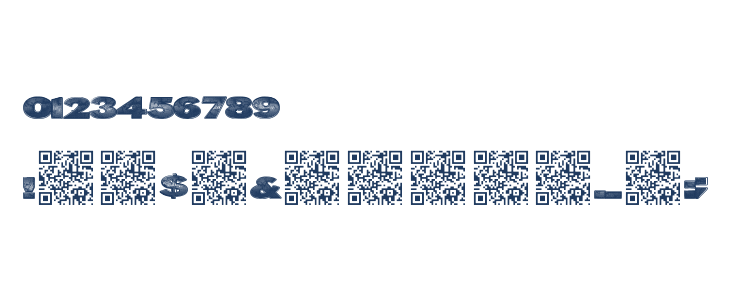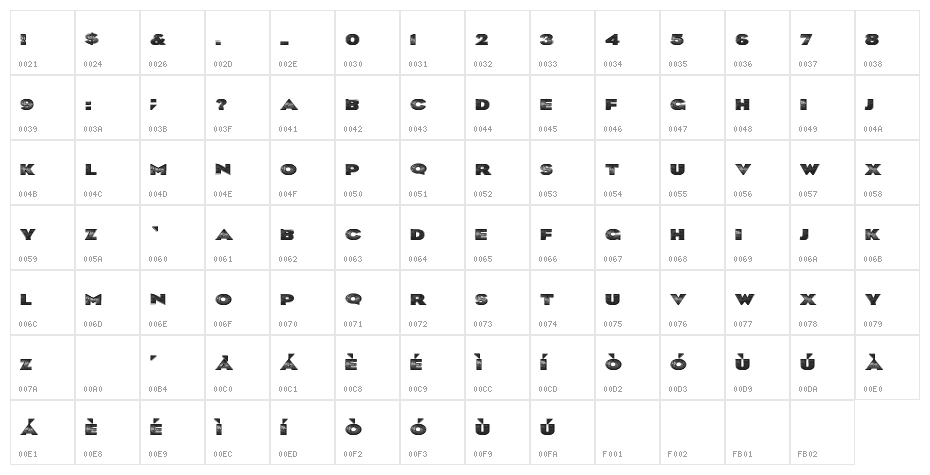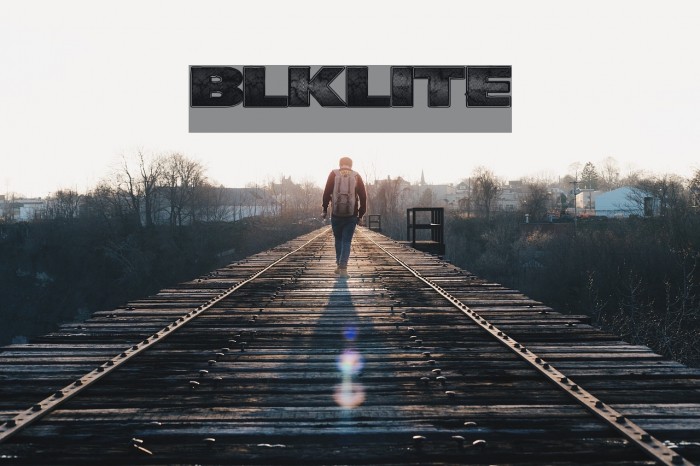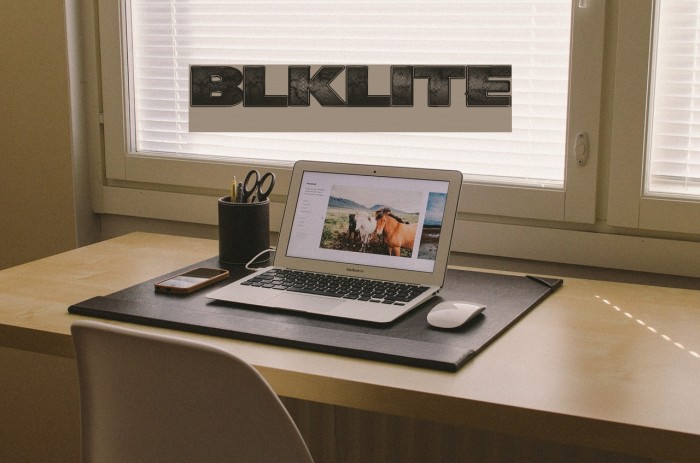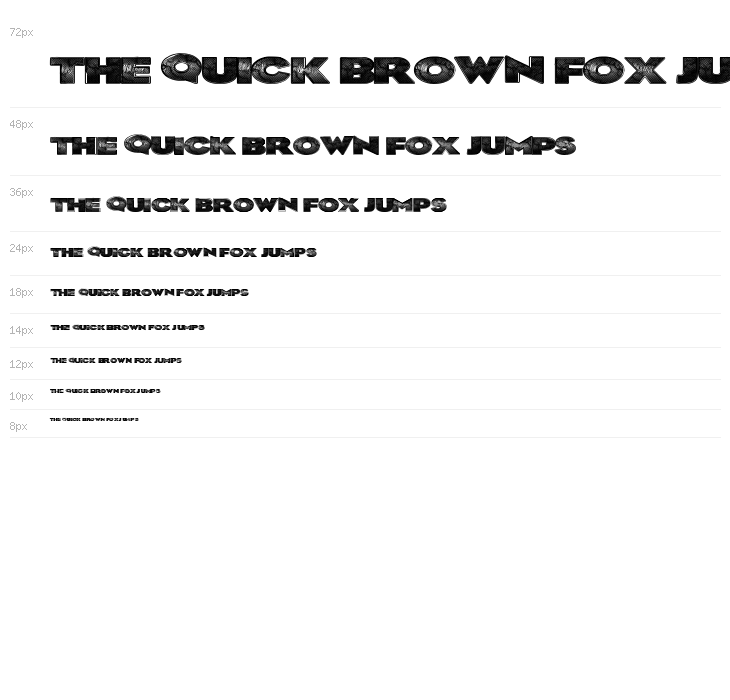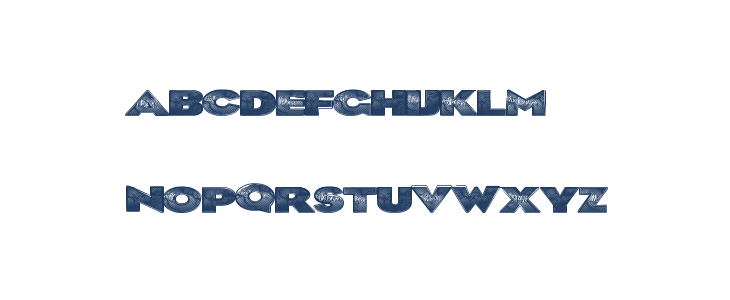
BlkLite Font
BlkLite Description
This font features a bold, textured style with a distressed, grunge-like appearance. The uppercase letters are robust and impactful, with a three-dimensional effect that adds depth. The characters are uniformly wide, giving a sense of stability and strength. The numbers and special characters maintain the same bold and textured aesthetic, ensuring consistency across all elements. This font is designed to capture attention and convey a sense of ruggedness and durability, making it ideal for projects that require a strong visual impact.
| Proposed Projects | Ideal for posters, album covers, branding for rugged products, or any design needing a strong, impactful presence. |